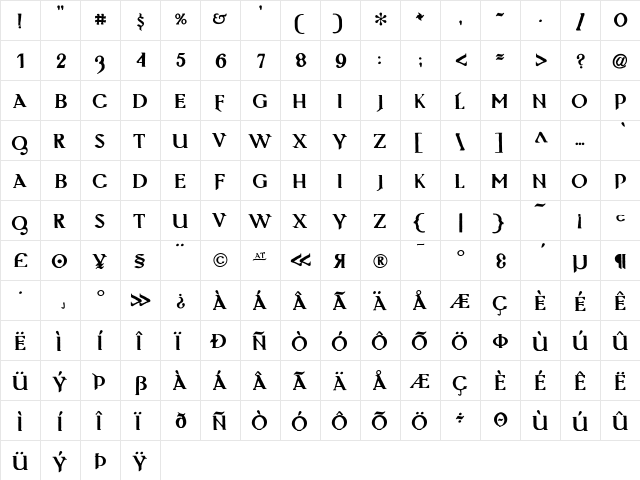
Masoch-Dirach Medium
Design Context for Masoch-Dirach Typeface
Masoch-Dirach offers clean, dependable letterforms without strong stylistic allegiance, making it a practical choice for designers who need flexibility.